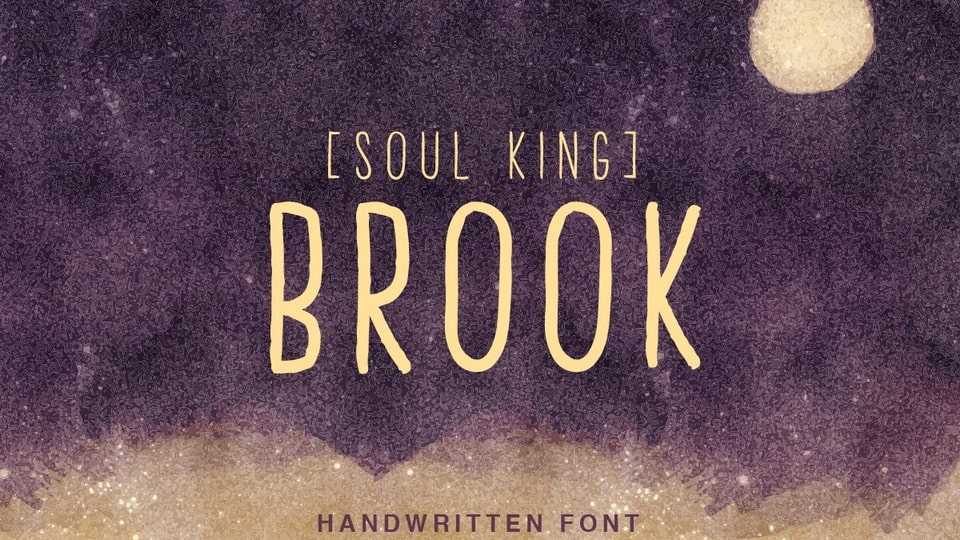
Download Brook font, a beautifully handcrafted typeface. Whether you’re creating a birthday card or a gift tag, Brook is the perfect way to personalize your designs.